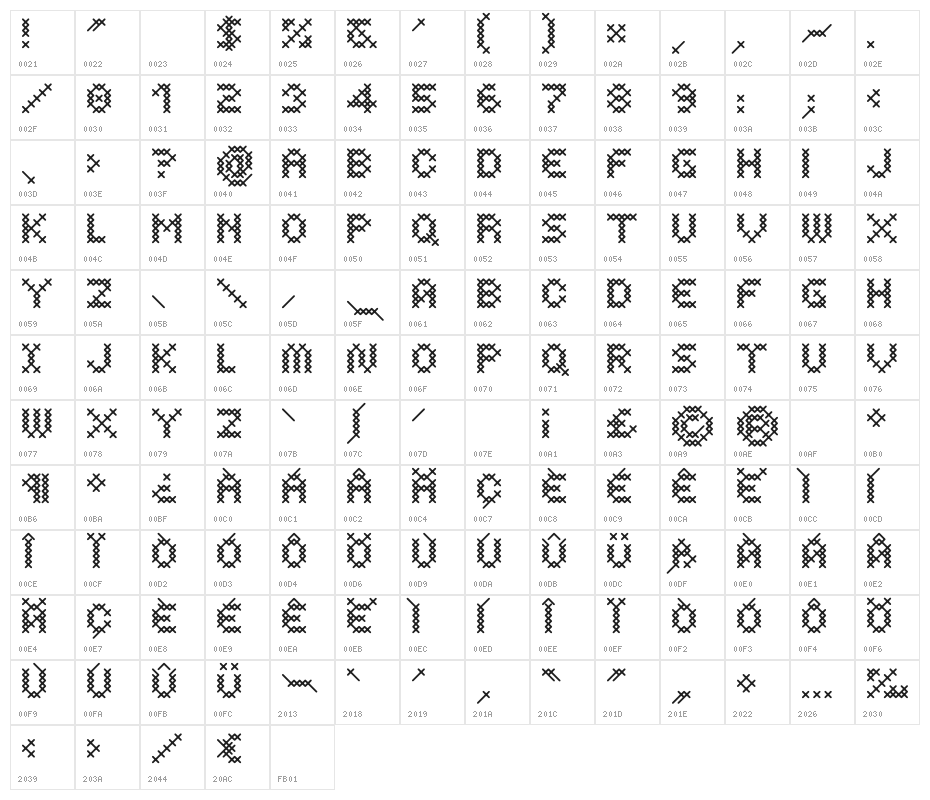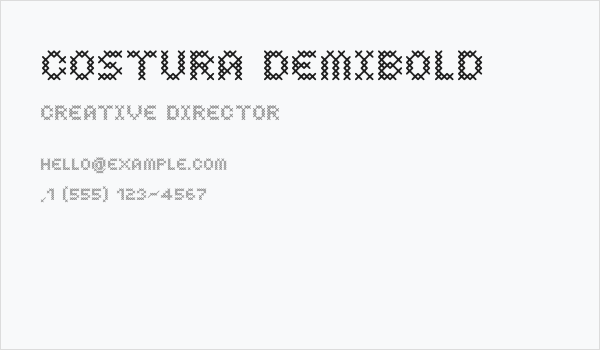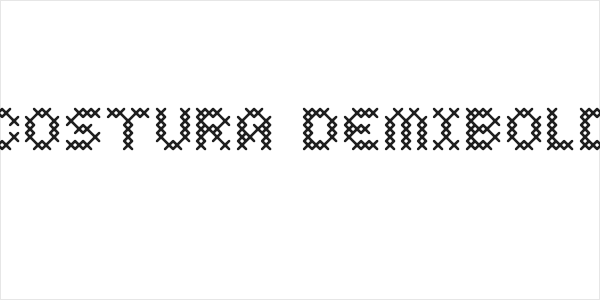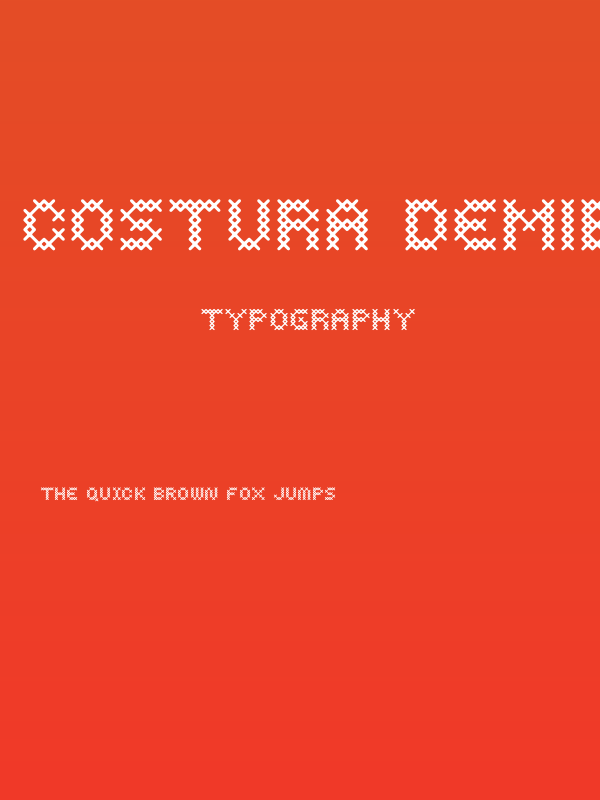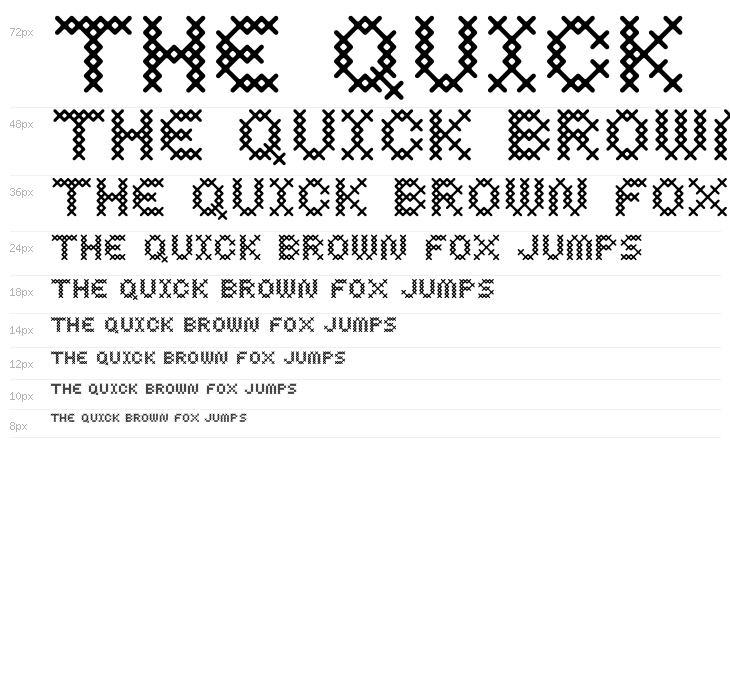
Costura DemiBold Font
Costura DemiBold Description
This font features a unique cross-stitch pattern that mimics the appearance of embroidery. Each character is composed of intersecting lines that form an 'X' shape, giving it a handcrafted and textured look. The design is consistent across uppercase and lowercase letters, as well as numbers and special characters, maintaining a cohesive aesthetic. The font's playful and decorative style makes it stand out, ideal for projects that require a touch of creativity and craft. Its distinct appearance is reminiscent of traditional sewing techniques, making it suitable for themes related to fashion, DIY crafts, or vintage designs.
| Use Case | Logos, Headlines, Decorative Text |
| Proposed Projects | Ideal for craft-themed designs, DIY projects, fashion branding, and vintage-inspired graphics. |